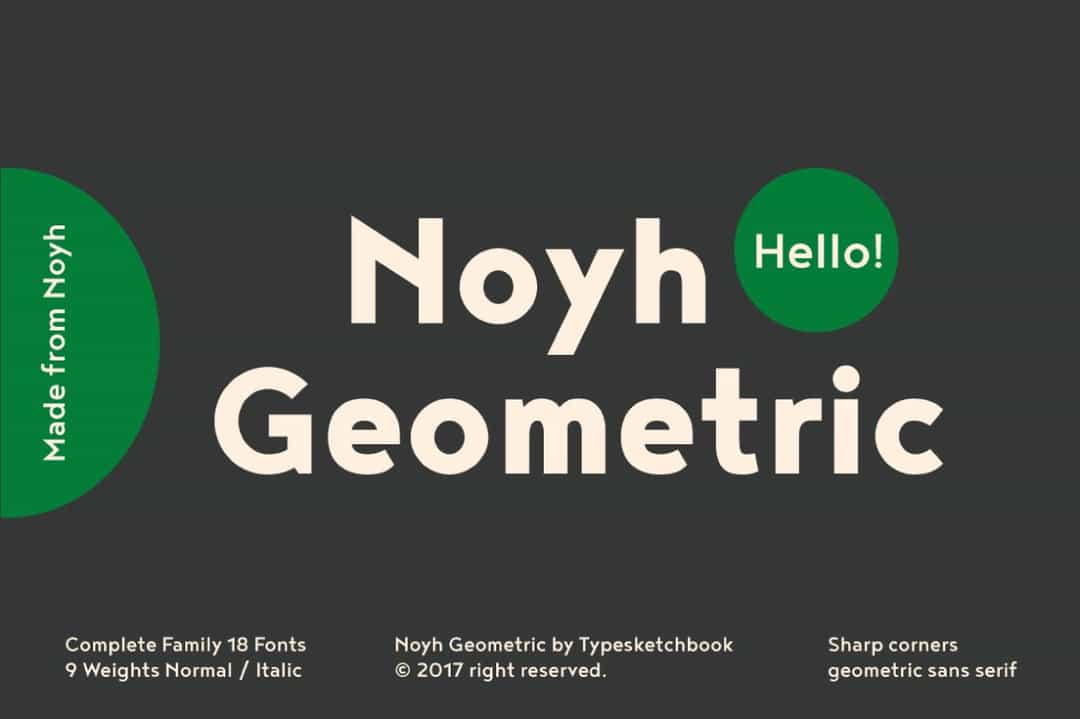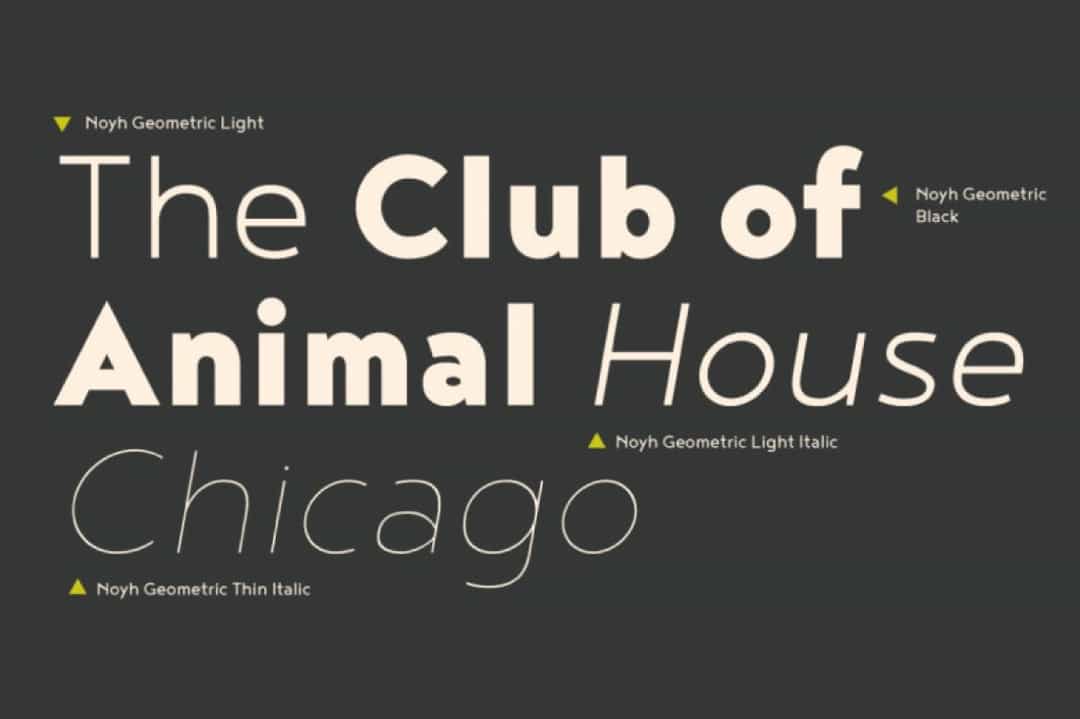
Noyh Geometric Sans Font Family is an enhanced version of “Noyh(2015).” We have introduced sharp corners in its apex design and imported it with flat terminals shaped harmoniously around sharp angles to give this font family more corporate look and feel. All these characteristics combined create the Noyh Geometric Sans font family.